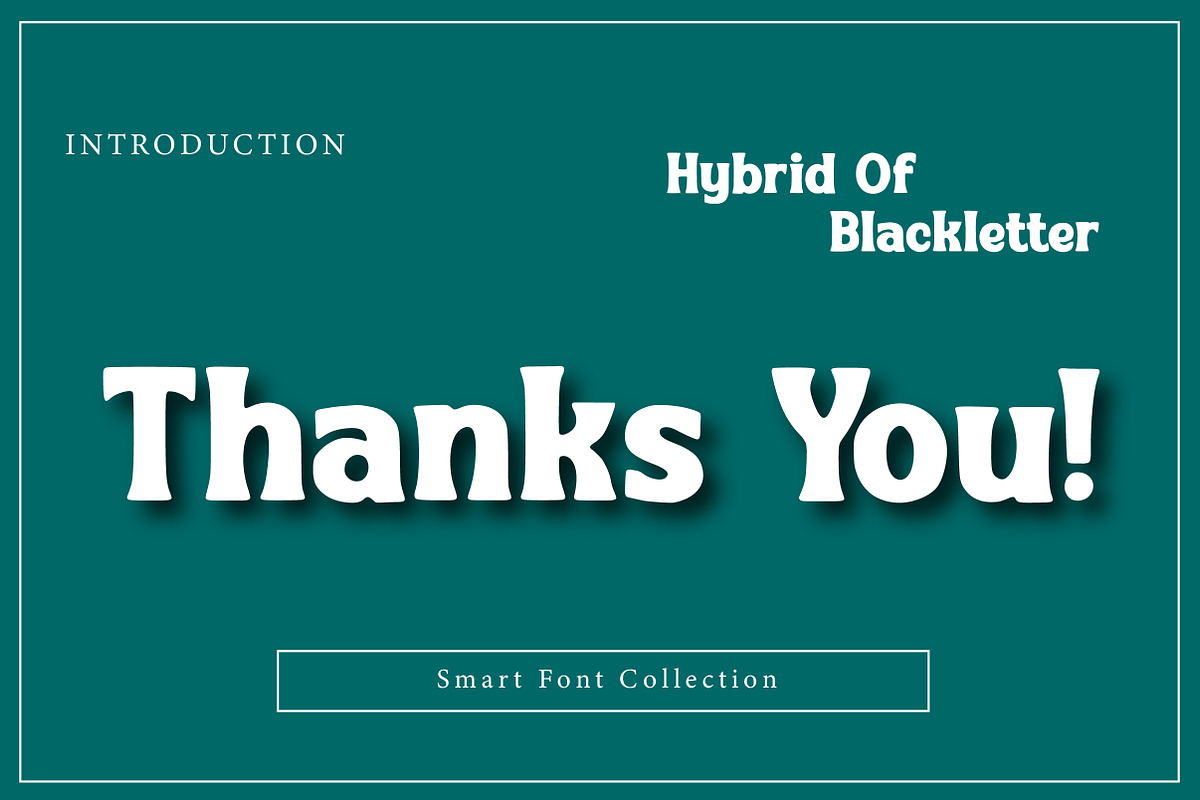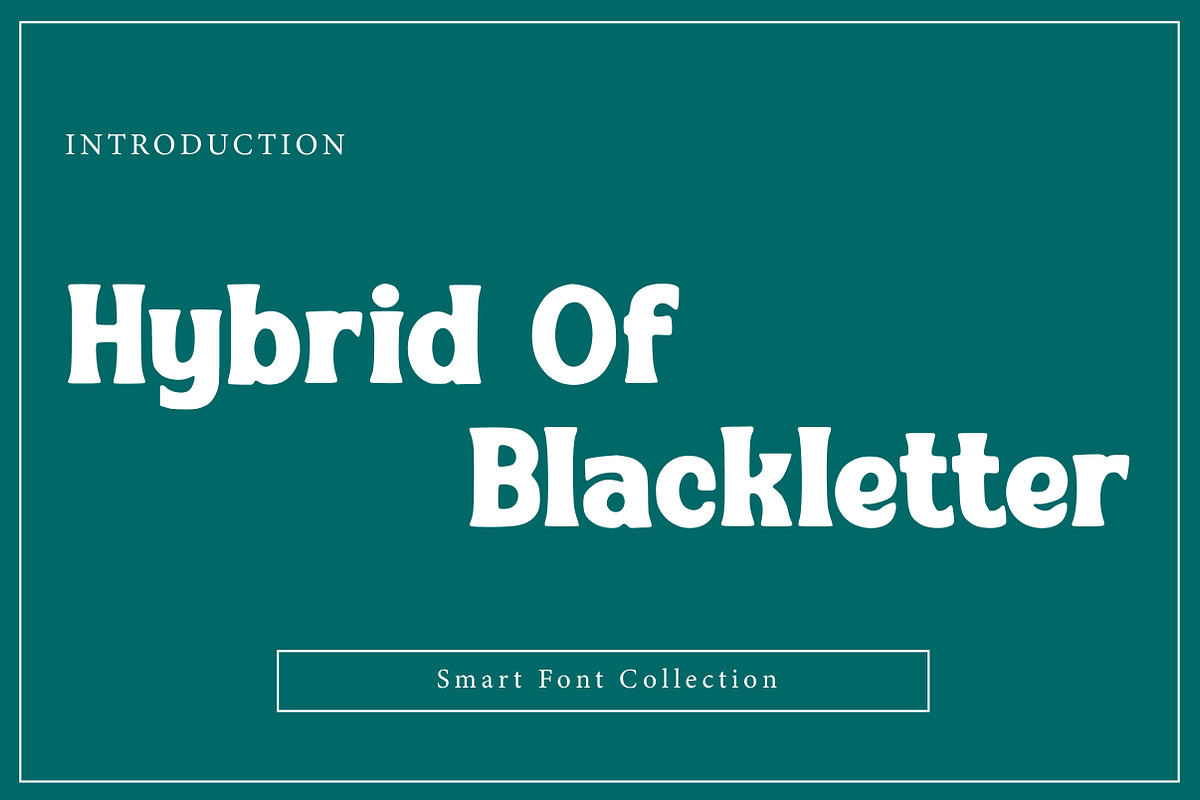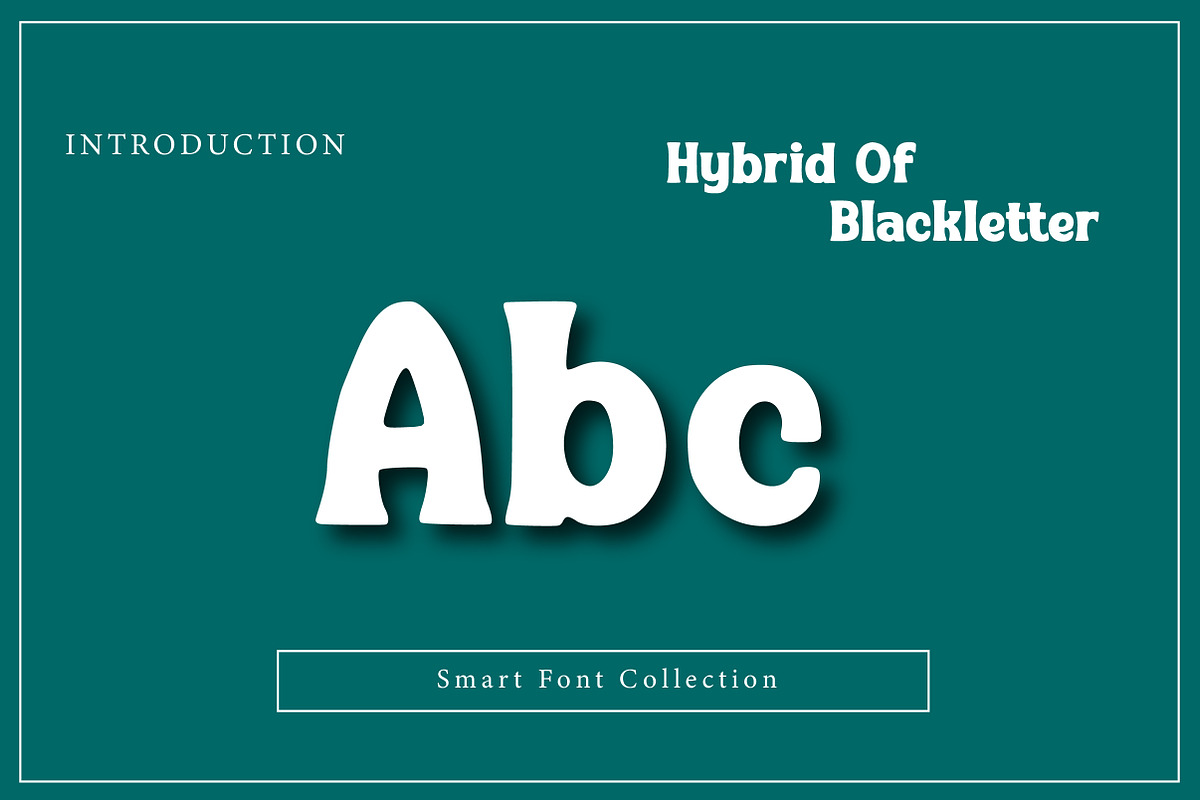
Hybrid Of Blackletter
Hybrid Of Blackletter is a bold and modern blackletter display font that blends classic gothic lettering with a clean contemporary structure. Featuring sharp edges, strong vertical strokes, and simplified ornamental details, this hybrid style delivers an authentic medieval vibe with improved readability. Perfect for logos, branding, posters, tattoos, album covers, streetwear designs, book titles, and dark-themed projects, Hybrid Of Blackletter adds dramatic character and powerful presence to any typography layout.